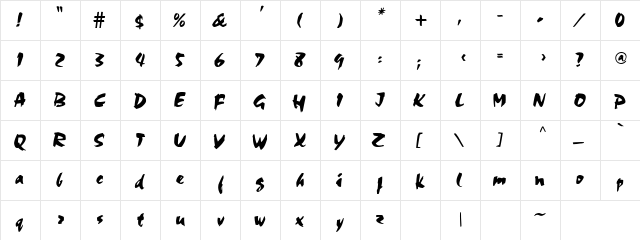
Perr Regular
Design Context for Perr Typeface
Perr is a composed and adaptable typeface that performs quietly and consistently across a wide range of design contexts.